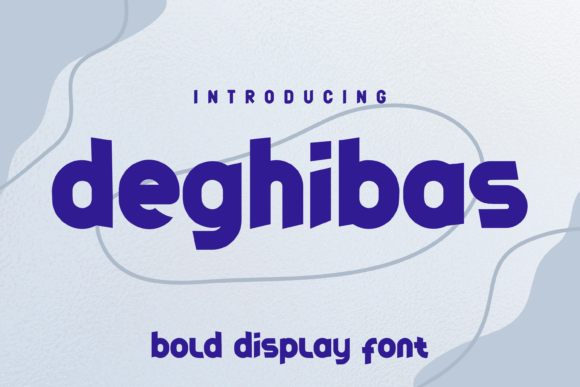
Introducing Deghibas Font: Add a Touch of Whimsy to Your Designs
Are you tired of using the same old fonts in your designs? Look no further than Deghibas Font, a fun and playful display font that’s sure to brighten up any project. With its whimsical and quirky style, Deghibas is perfect for designers and crafters looking to add a touch of personality to their work.
What is Deghibas Font?
Deghibas Font is a display font that’s designed to make a statement. Its unique and playful style is perfect for headlines, titles, and other design elements where you want to grab attention. The font is characterized by its irregular shapes, bold lines, and carefree spirit. Whether you’re designing a logo, brochure, or social media graphic, Deghibas Font is sure to add a touch of whimsy and fun.
Key Features of Deghibas Font
- Fun and playful style: Deghibas Font is designed to be eye-catching and engaging. Its quirky style is perfect for designs that need a bit of personality.
- Whimsical and irregular shapes: The font features irregular shapes and bold lines, giving it a unique and carefree spirit.
- Perfect for display text: Deghibas Font is designed for display text, making it perfect for headlines, titles, and other design elements where you want to grab attention.
- Easy to read: Despite its playful style, Deghibas Font is easy to read, even at smaller sizes.
Use Cases for Deghibas Font
Deghibas Font is perfect for a wide range of design projects, including:
- Logos and branding: Add a touch of whimsy to your logo or branding with Deghibas Font.
- Social media graphics: Use Deghibas Font to create eye-catching social media graphics that stand out from the crowd.
- Brochures and flyers: Add some personality to your brochures and flyers with Deghibas Font.
- Posters and prints: Deghibas Font is perfect for posters and prints, where you want to grab attention and make a statement.
Tips for Using Deghibas Font
Here are some tips for getting the most out of Deghibas Font:
- Use it sparingly: Deghibas Font is designed to be eye-catching, so use it sparingly to avoid overwhelming your design.
- Pair it with a simple font: Pair Deghibas Font with a simple font to create contrast and make your design more readable.
- Experiment with colors: Deghibas Font looks great in bold, bright colors, so don’t be afraid to experiment and find the perfect color for your design.
Deghibas Font is a fun and playful display font that’s perfect for designers and crafters looking to add a touch of whimsy to their work. With its unique and quirky style, Deghibas Font is sure to brighten up any design and make it stand out from the crowd. So why not give it a try and see the difference it can make in your designs?
- Font type: Display font
- Font style: Fun and playful